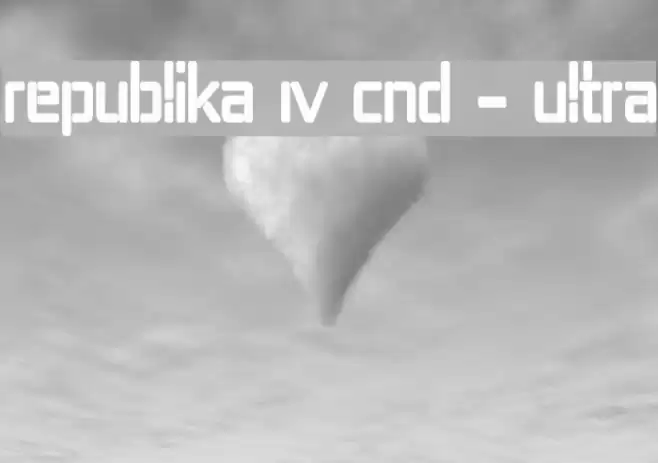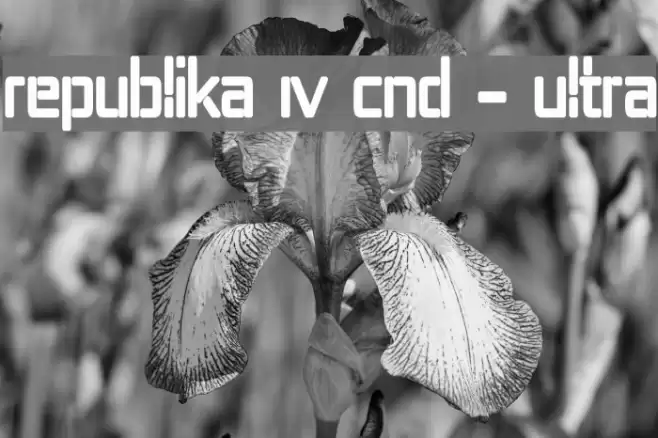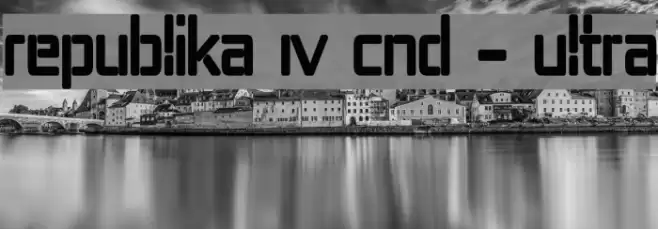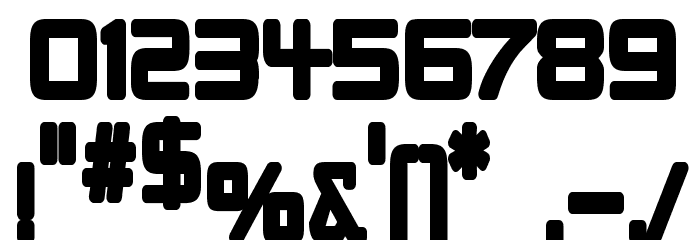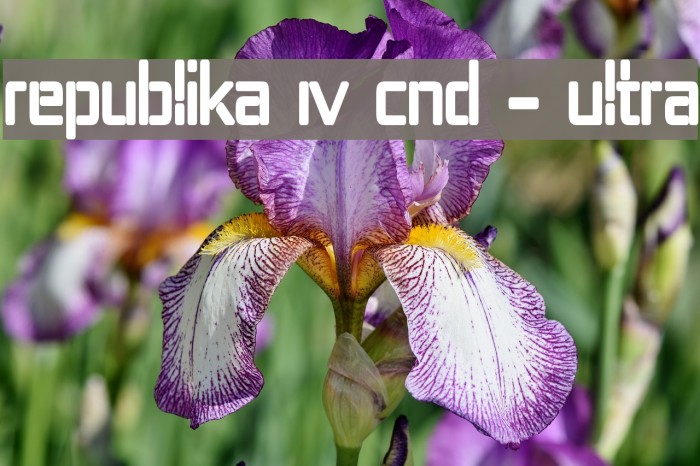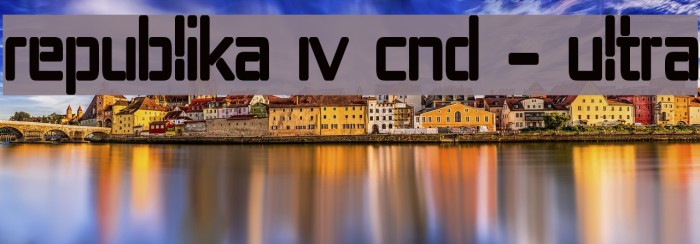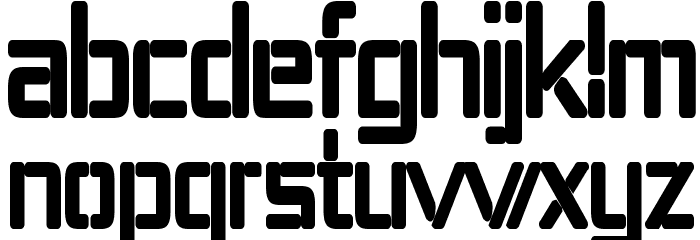
Republika IV Cnd - Ultra Font
Republika IV Cnd - Ultra Description
This font features a bold, geometric design with a distinctly modern and futuristic aesthetic. The characters are constructed with thick, uniform strokes that create a strong visual impact. The rounded edges and consistent line thickness give it a smooth, cohesive appearance. The uppercase and lowercase letters maintain a uniform height, enhancing its structured and compact look. The numerals and special characters follow the same design principles, ensuring a harmonious overall style. This font's condensed width makes it ideal for maximizing space while maintaining readability.
A bold, geometric font with a modern, futuristic style and condensed width from Uncategorized fonts.
- Proposed Projects: Ideal for technology branding, futuristic posters, digital interfaces, and modern advertising.